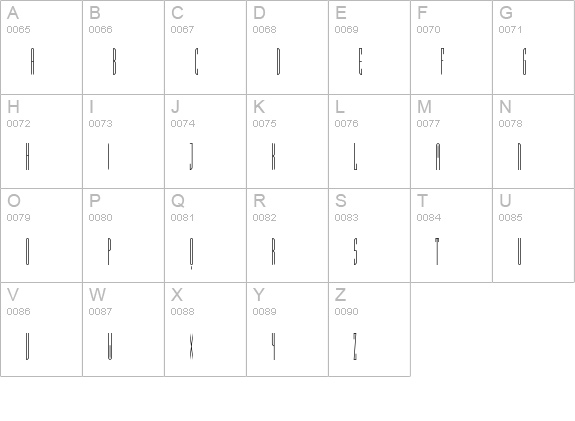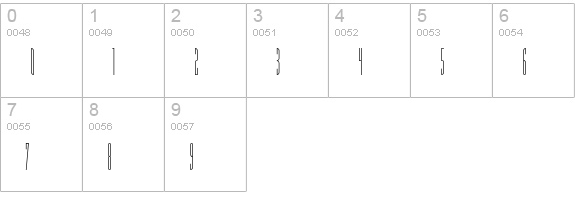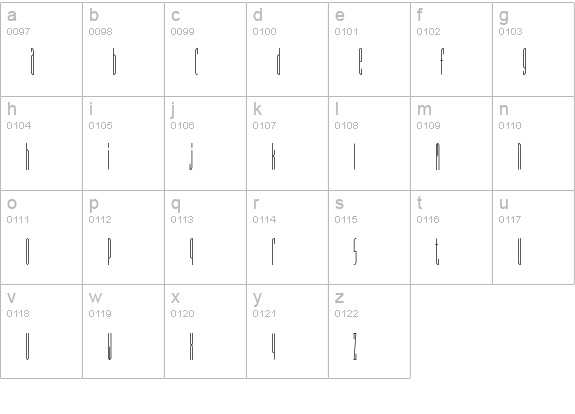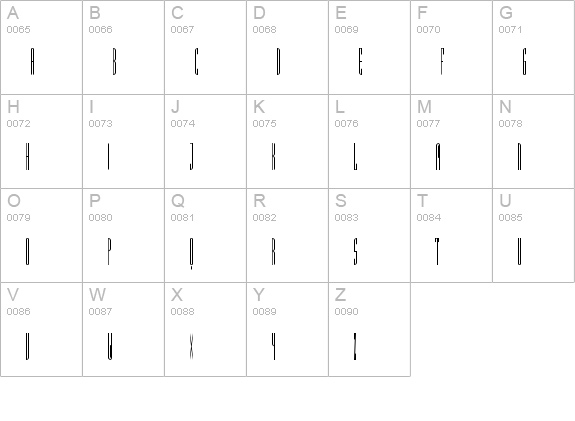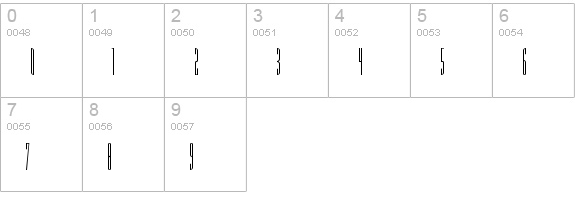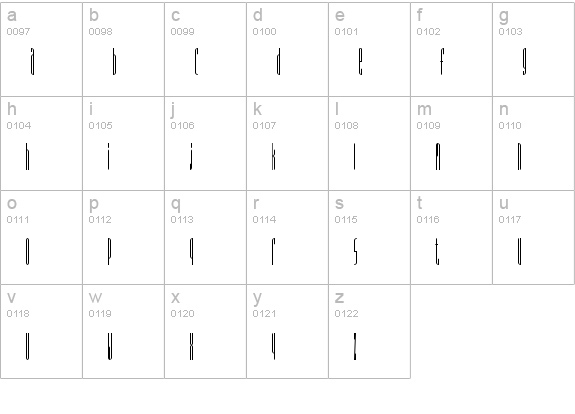
Typeface-FourTwo Font Details
Typeface-FourTwo is a stunning and versatile font that effortlessly combines elegance and modernity. With its sleek and clean lines, this font is perfect for a wide range of design projects, from branding and logo design to website headers and social media graphics. What sets Typeface-FourTwo apart is its unique ability to exude professionalism and sophistication while maintaining a youthful and fresh vibe. The carefully crafted letterforms are beautifully balanced, making it easy to create visually captivating compositions. Whether you're designing for print or digital media, Typeface-FourTwo offers a wide range of weights and styles that will suit any creative vision. From bold and impactful headings to delicate and refined body text, this font has got you covered. What makes Typeface-FourTwo even more appealing is that it is completely free to download at FontsMarket.com. This means that you can bring your design ideas to life without breaking the bank. With just a few clicks, you can have this remarkable font at your fingertips, ready to elevate your projects to the next level. Don't miss out on the opportunity to enhance your designs with Typeface-FourTwo. Download it for free today at FontsMarket.com and let your creativity shine.